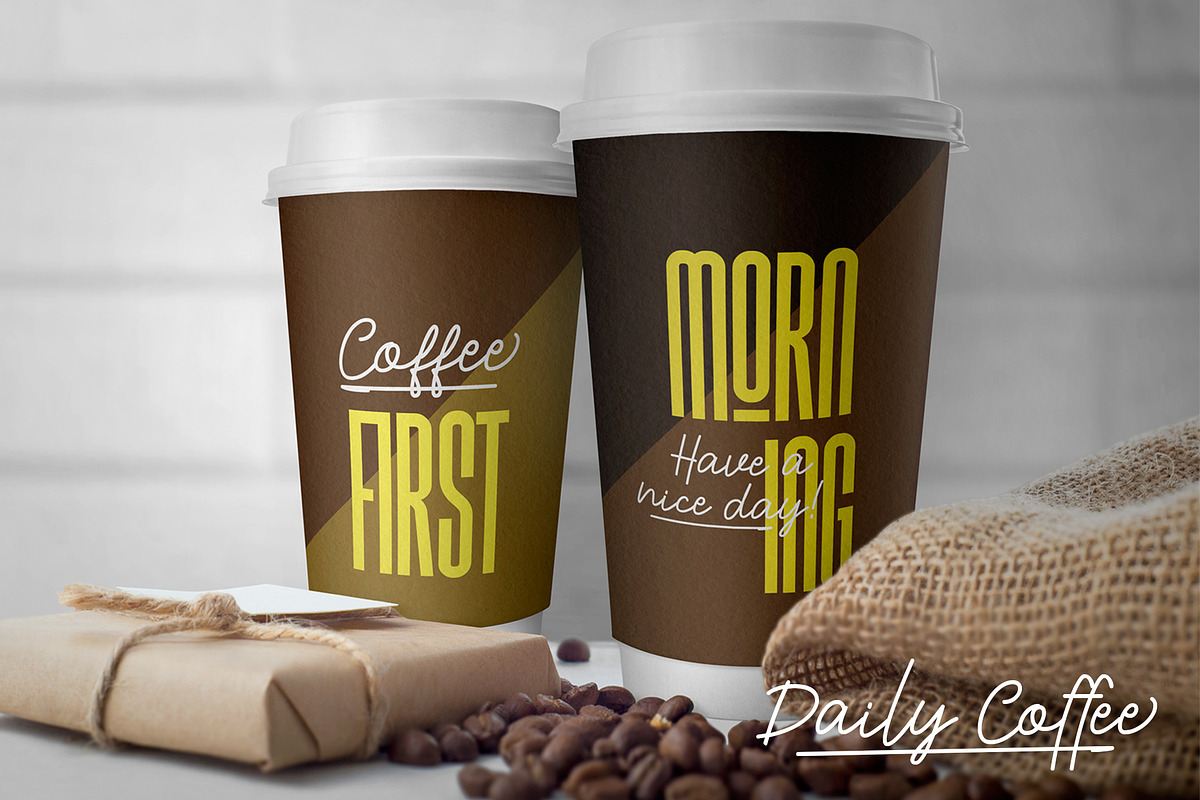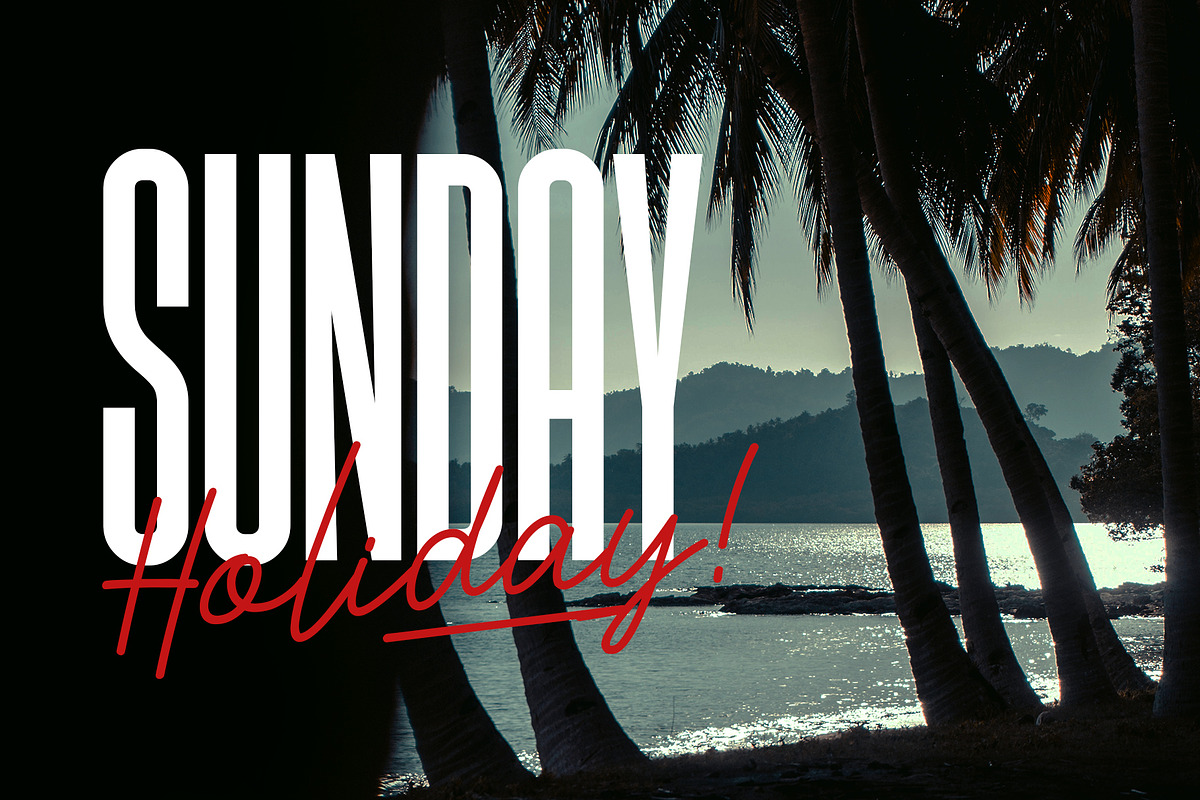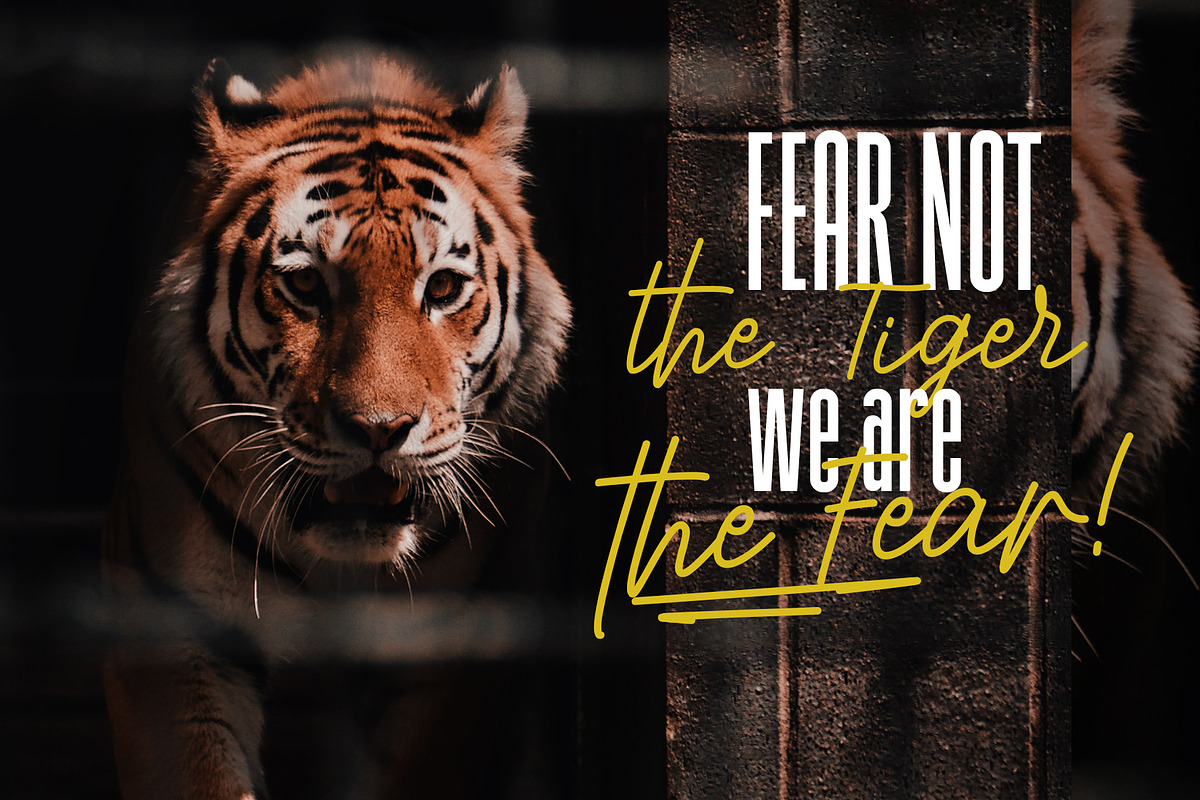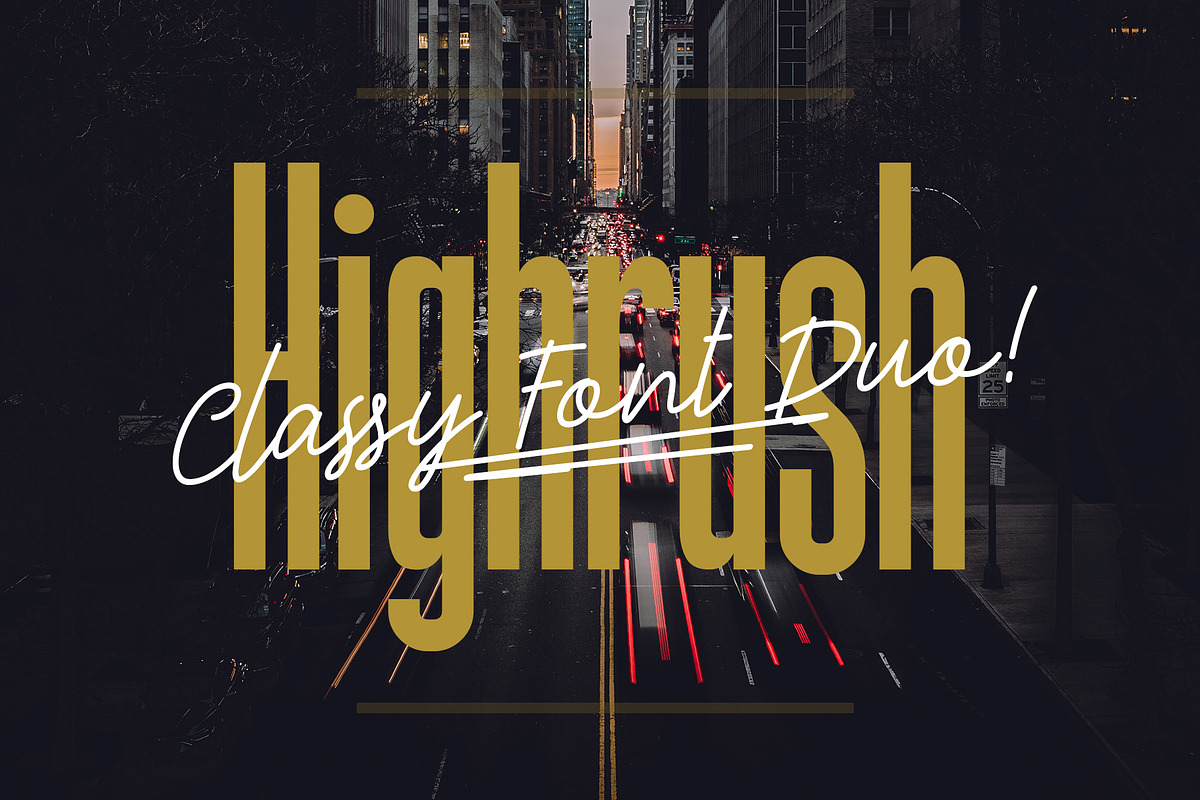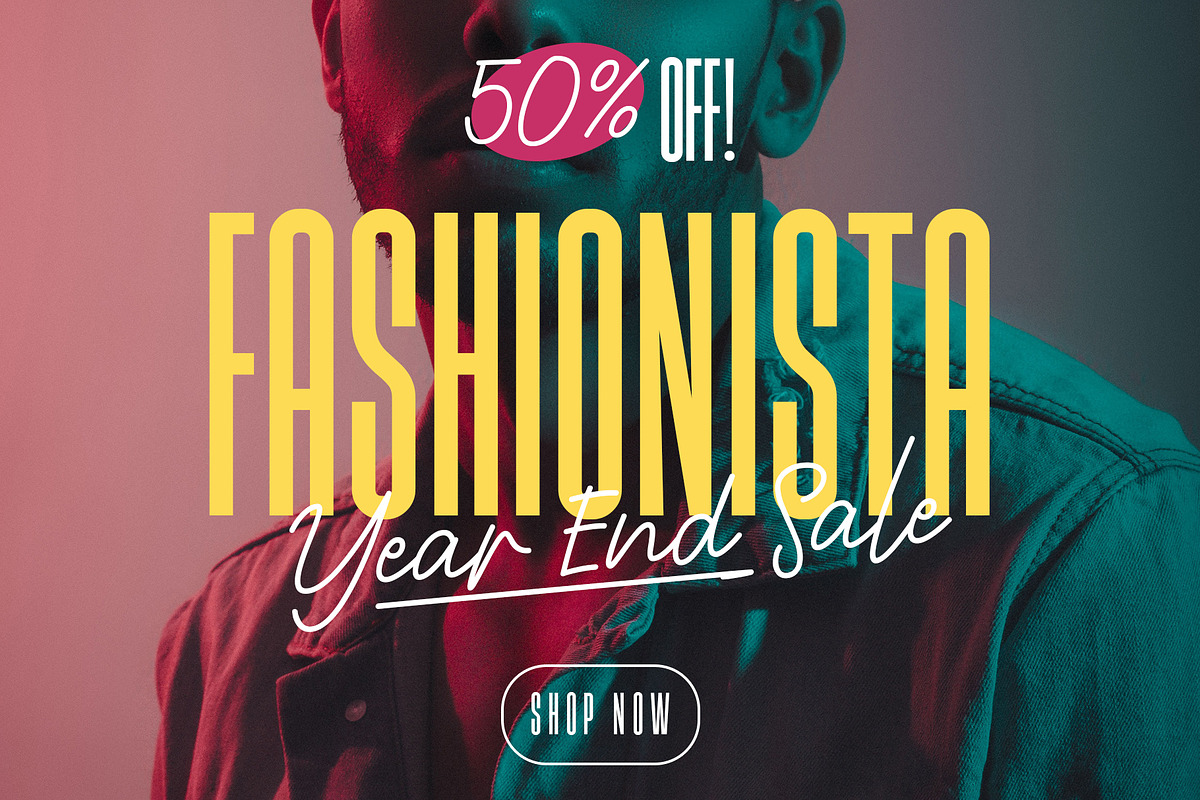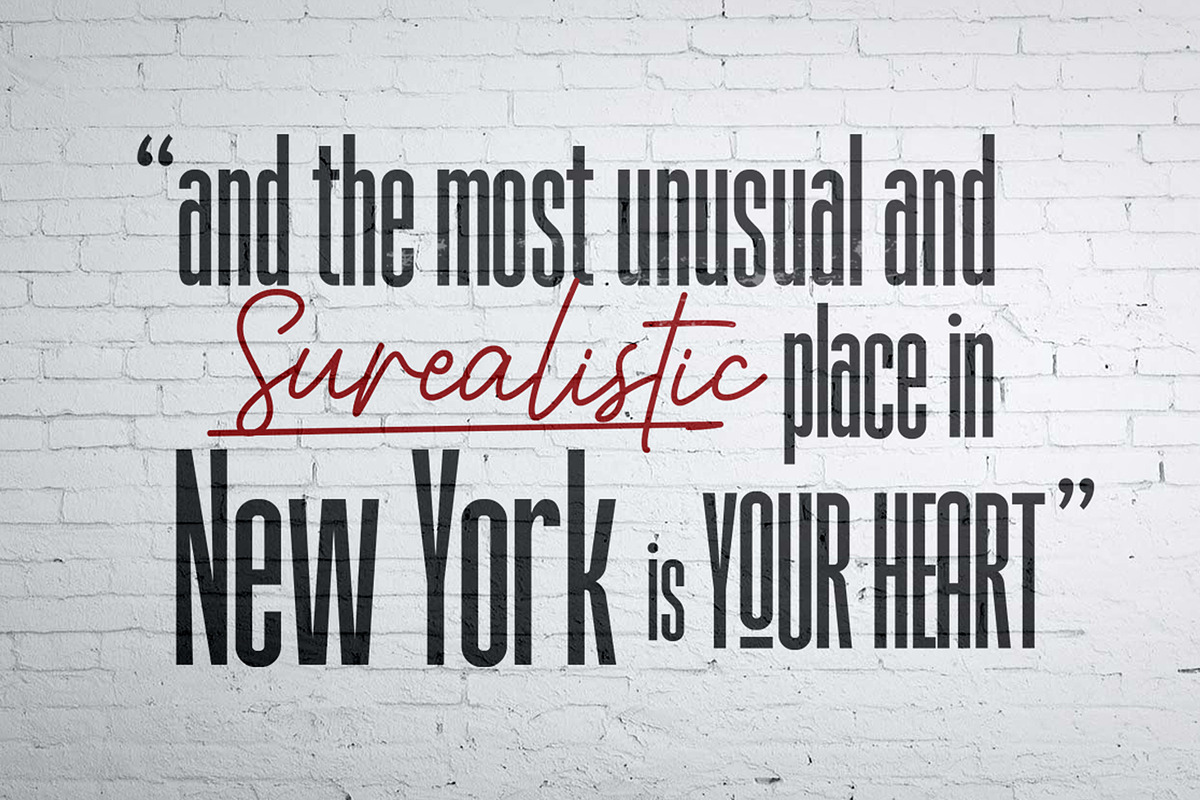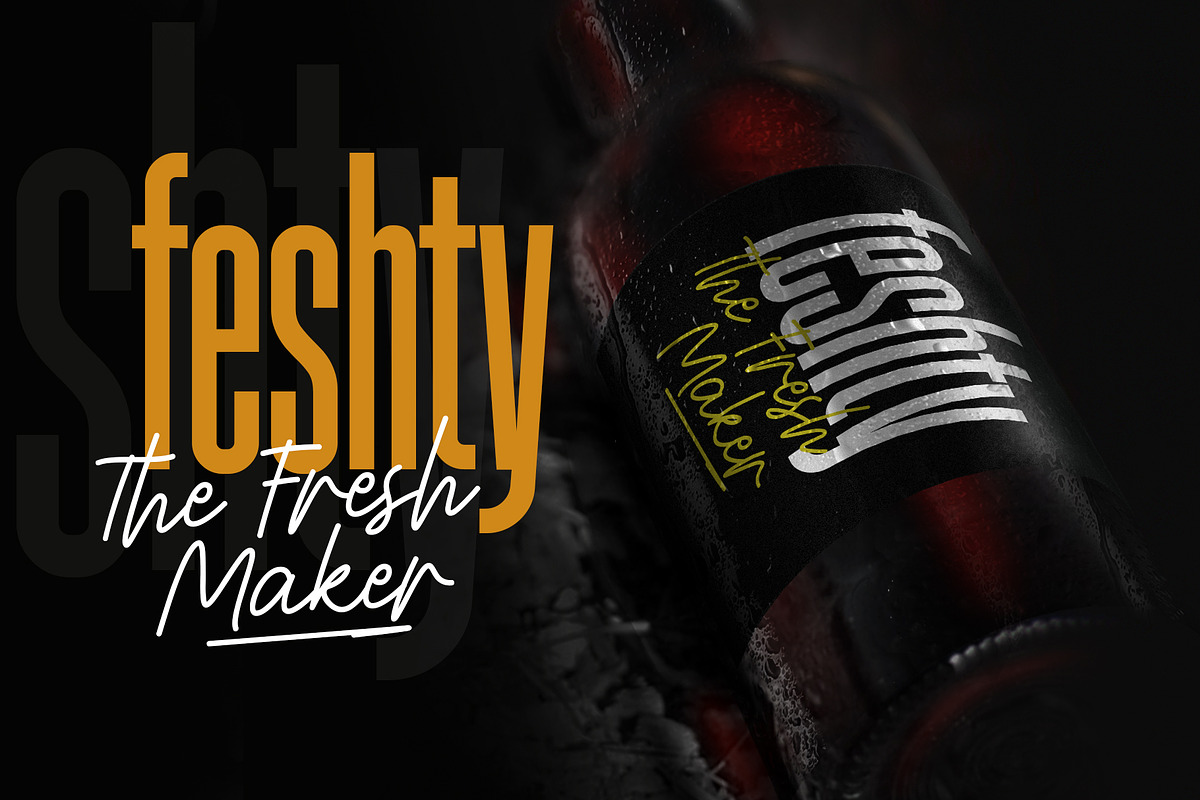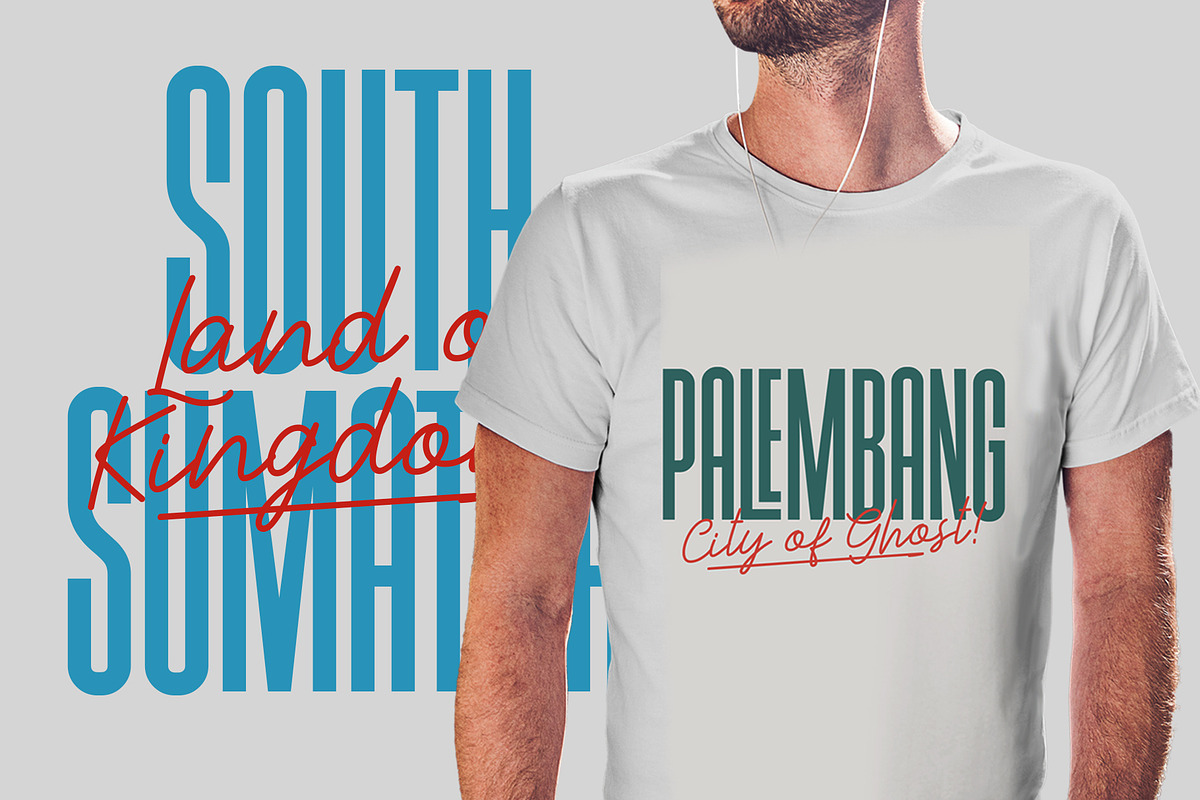
Highrush Font Duo
Give your designs more classy with 'Highrush Font Duo'. A beautiful combination of condensed and handwriting font. Perfect for headline, magazine, quote, poster, merchandise, apparel, social media posts, storefront, and more. Highrush carefully designed with consistent tight spacing, especially in Condensed style
Highrush has a perfect contrasting combination. You can use the condensed as the main text and the handwriting as the secondary text and conversely. There are some ligatures to make your designs looks more unique, also the custom swashes in 'Handwriting style' that you can access by simply type 'underscore' and numbers '1 to 0'
- Highrush Condensed
- Highrush Handwriting